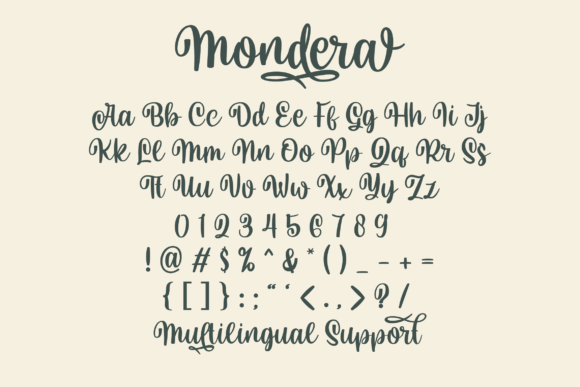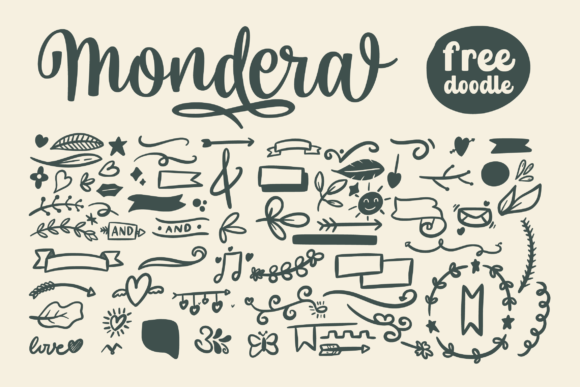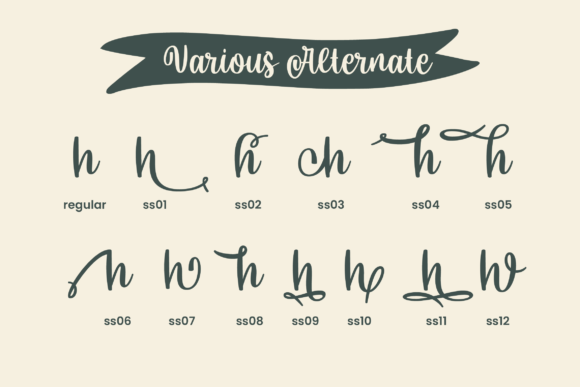
Introduction to Mondera Font
There’s something magical about creating a design that touches someone’s heart. Whether it’s a wedding invitation, a heartfelt thank you card, or a quote that inspires, the perfect font can make all the difference. For designers, finding the right font can be a daunting task, but what if I told you that I’ve discovered a hidden gem that’s sure to elevate your creative project?
Meet the Mondera Font, a stunning handwritten font that exudes romance and elegance. With its beautiful script and intricate details, this font is perfect for adding a personal touch to any design. Whether you’re working on a free download project or creating a high-quality design for a client, the Mondera Font is an invaluable resource that’s sure to impress.
One of the best things about the Mondera Font is that it’s PUA encoded, making it easy to access all of its glyphs and swashes. This means you can customize your design to perfection, without any hassle. Whether you’re working on a design with a transparent background or a logo with a bold message, the Mondera Font is the perfect choice.
Key Features of Mondera Font
- High-quality design resource ideal for creative projects, offering a unique and elegant style.
- Features a transparent background, allowing for seamless integration into any design or project.
- Perfect for use in graphic design, web design, and digital art projects, adding a touch of sophistication and elegance.
Honest Review: Mondera Font
I recently had the chance to work with the Mondera Font, and I must say it’s a fantastic addition to any design resource collection. ✨ With a free download available, it’s easily accessible for designers of all levels. The font’s unique blend of elegance and modernity makes it perfect for a wide range of creative projects.
The Mondera Font is particularly well-suited for designs that require a high level of sophistication and refinement. The font’s transparent background allows for seamless integration with any image or background, giving designers complete creative control.
- Unique and elegant design
- Perfect for high-end creative projects
- May not be suitable for casual or informal designs
- Some users may find the font’s complexity overwhelming
Overall, I’m thoroughly impressed with the Mondera Font. Its high quality and versatility make it a valuable addition to any designer’s toolkit. While it may not be suitable for every project, it’s definitely worth considering for those looking to add a touch of sophistication to their designs. ✨
Tips for Getting the Most Out of Mondera Font
Use the Mondera Font for high-quality design projects, such as brochures, flyers, and business cards. Take advantage of the font’s transparent background feature to create eye-catching designs. Experiment with different font sizes and styles to add depth and visual interest to your designs.
The Mondera Font is ideal for use in creative projects, such as graphic design, digital art, and typography. It’s also a great resource for designers looking for a high-quality, free font to use in their designs.